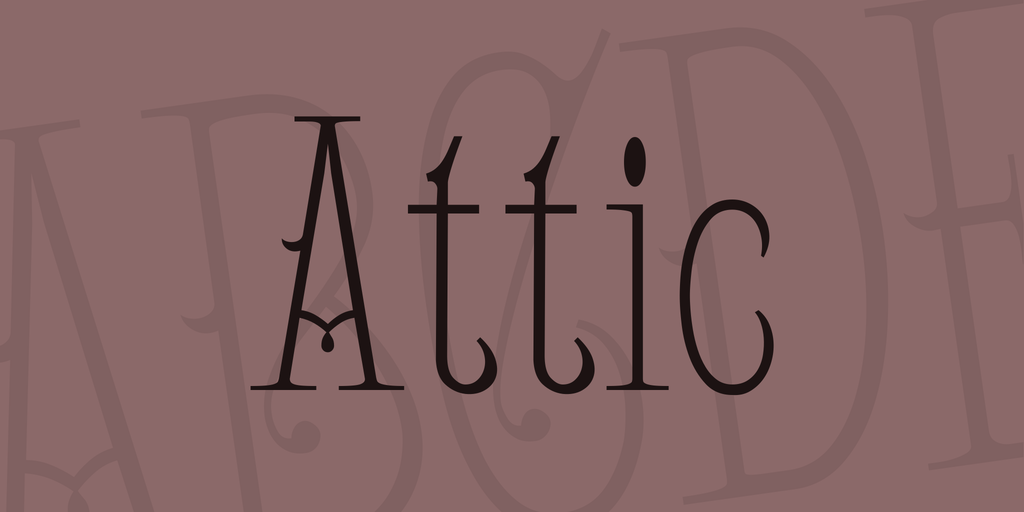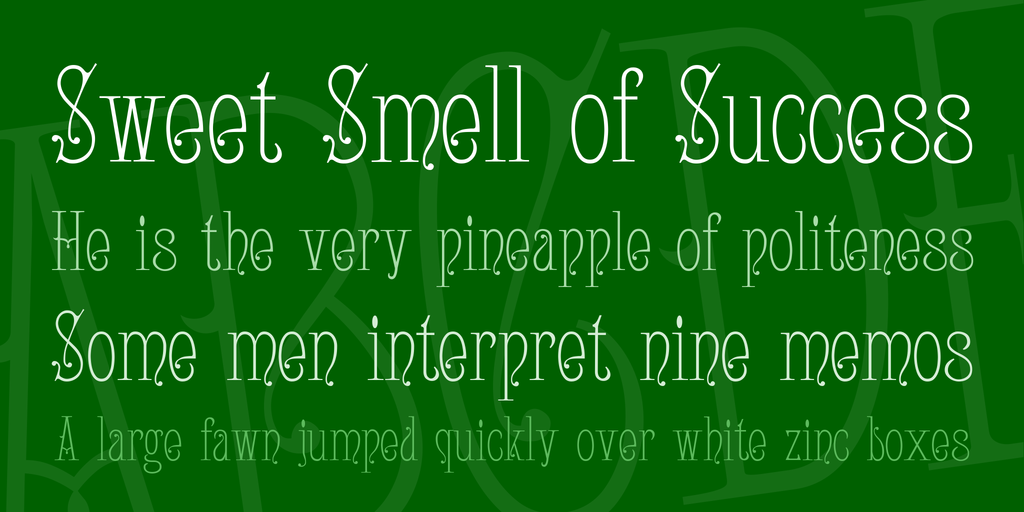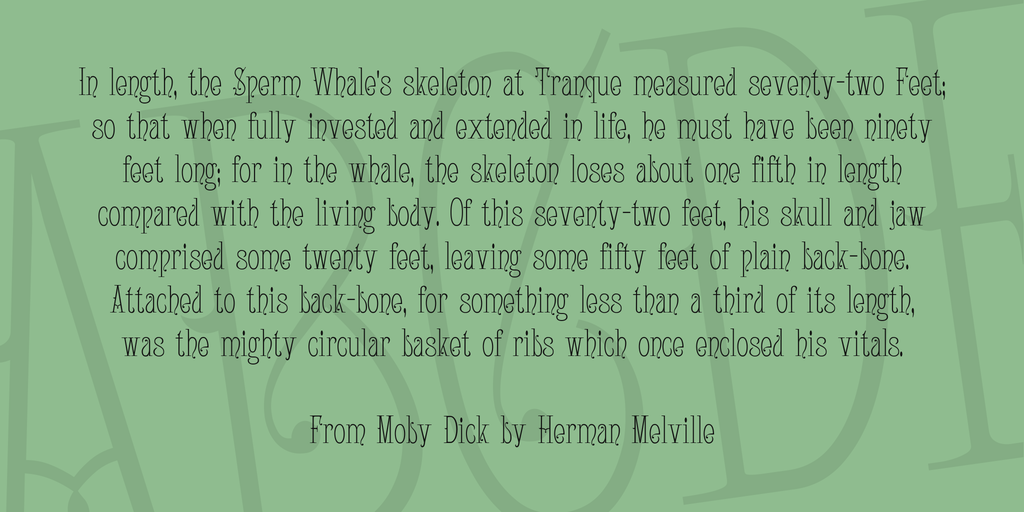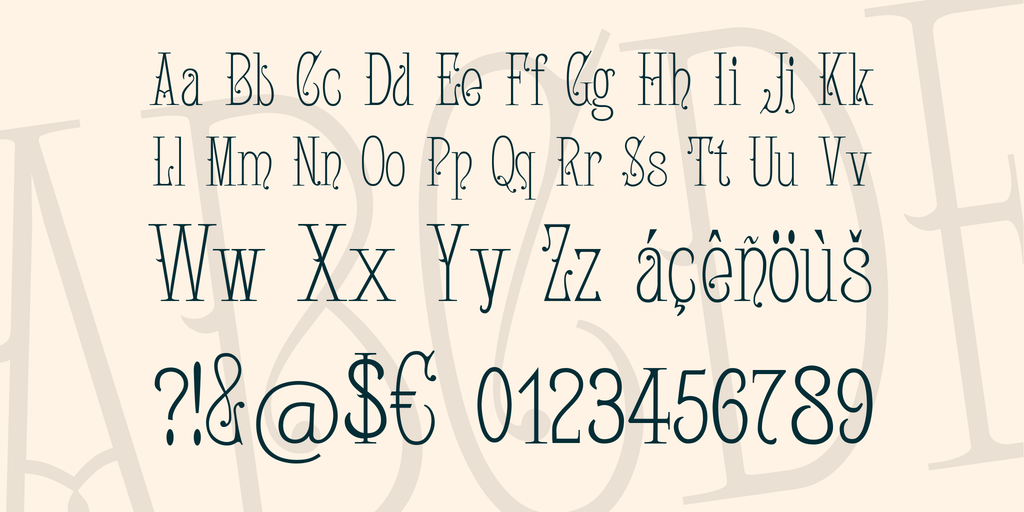
Attic Font
Translation of the original German description: It’s pretty much 123 years ago, when MacHeller, Smiths & Jordan Company of Philadelphia published their 20th main sample.
In this book there are some old acquaintances, as well as many fonts that I’ve never seen before. Some are not suitable to be digitized, as they are too detailed and would result in much too large font files, but the Attic with it’s fitting name for nowadays, is certainly not the font of this book.